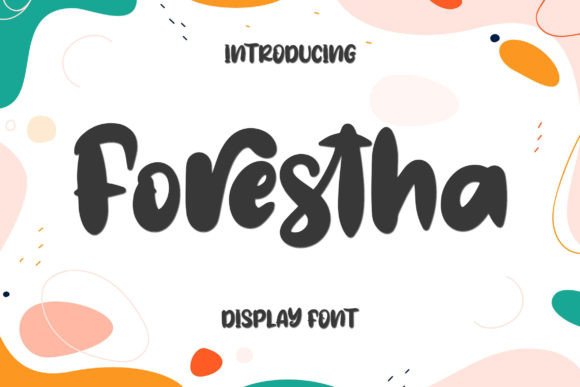
Immerse yourself in the world of creative expression with Forestha Font, a captivating script font family designed to leave an unforgettable impression. Crafted with meticulous attention to detail by the talented Home Work Creative Studio, Forestha is an embodiment of charm, originality, and versatility.
Step into a realm of endless possibilities, where your imagination knows no bounds. Whether you're a seasoned designer seeking to elevate your projects or a budding enthusiast eager to make a statement, Forestha is your perfect companion. Its enchanting handwritten style adds a touch of whimsy and playfulness to your creations, captivating your audience with its unique charm.
Unleash your creativity and let Forestha guide you through a journey of self-expression. With its diverse range of applications, from letterheads and titles to stationery, logos, quotes, posters, packaging, movie titles, YouTube banners, clothing, and beyond, Forestha adapts seamlessly to your creative vision, adding a touch of elegance and sophistication to every project.